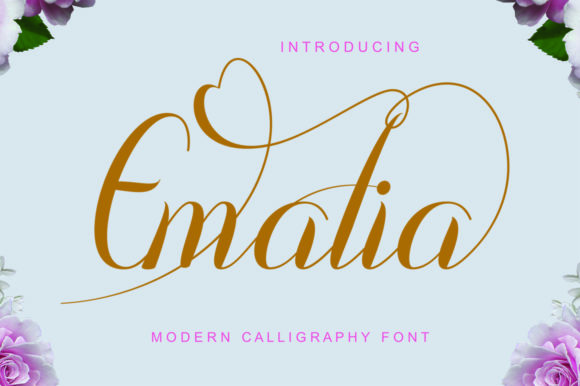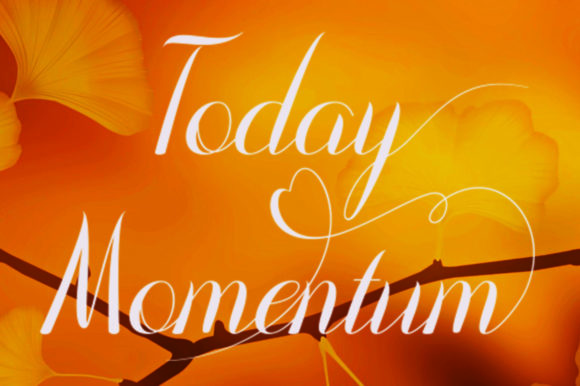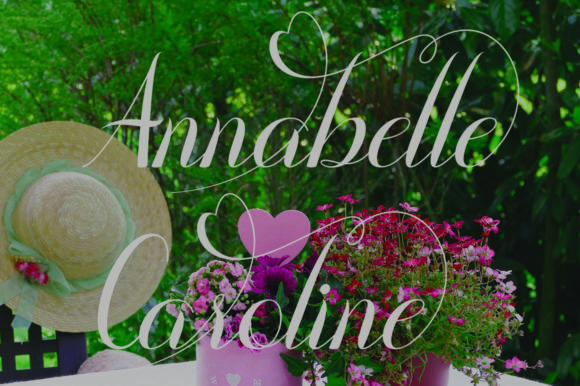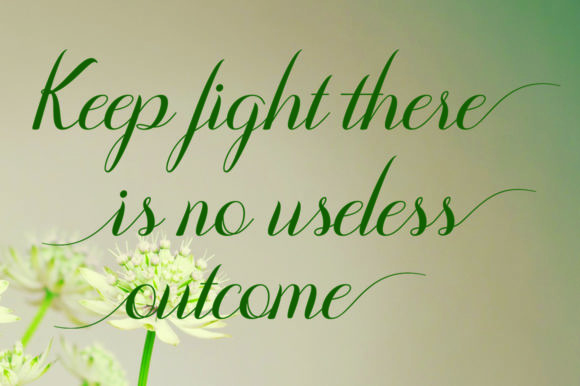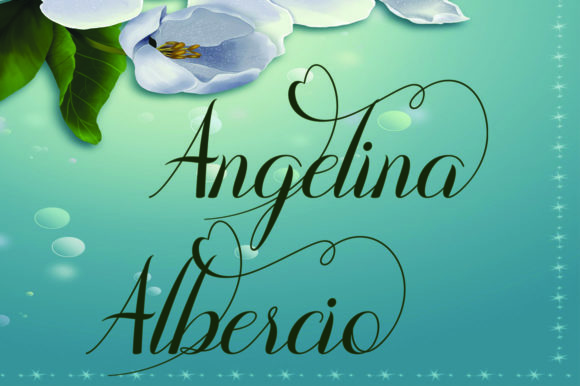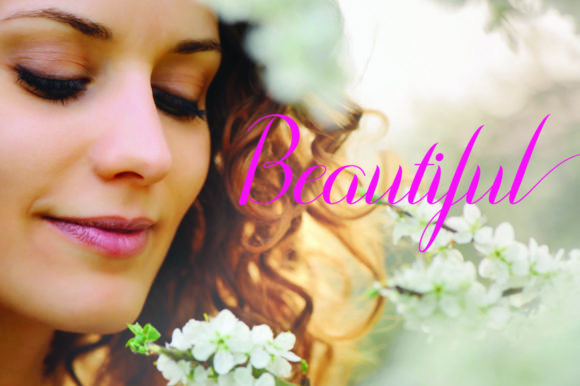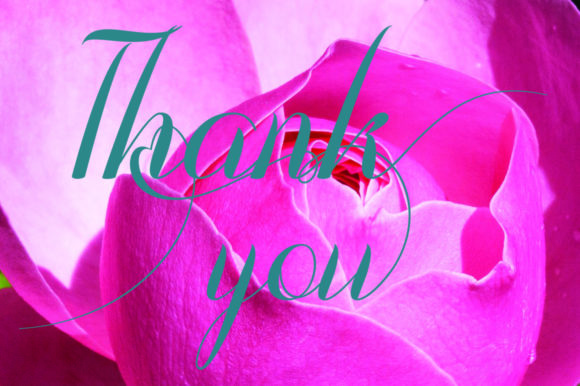
HomeScript FontsEmalia Font Script Fonts Emalia Font FacebookXPinterestWhatsApp Emalia Font Poster 2 Emalia Font Poster 3 Emalia Font Poster 4 Emalia Font Poster 5 Emalia Font Poster 6 Emalia Font Poster 7 About Emalia Font Emalia is a stunning and romantic script font, full of energy. It will add a beautiful feel to any design project. DOWNLOAD ON CREATIVE FABRICAThis font is sold and delivered by Creative Fabrica. Font Canyon may earn a commission if you buy through this link. People also explored Lunarbless Font Resilen Font Christmas Umbrella Font Pepitas Font Starllah Font Ahkio Fresh Orange Font Finlandia Signature Font Young Girls Script 317 0 TagsEmalia Font Previous articleThe Queenlakes FontNext articleKatalia Font LEAVE A REPLY Cancel reply Comment: Please enter your comment! Name:* Please enter your name here Email:* You have entered an incorrect email address! Please enter your email address here Website: Save my name, email, and website in this browser for the next time I comment. Personal Use Free Boston Traffic Personal Use Free Read more about this font Numberpile Personal Use Free Read more about this font Bonhomie Personal Use Free Read more about this font Allea Sweet Personal Use Free Read more about this font BLOG Top 10 Handwritten Fonts That Elevate Your Designs Top 10 Handwritten Fonts That Will Elevate Your Designs Handwritten fonts bring a warm, personal touch to every creative project. Whether you're designing logos, invitations,... Fonts That Capture the Spirit of New York City Best Fonts for T-Shirt Design – Top 2025 Picks Modern Sans-Serif Fonts That Brands Love in 2025